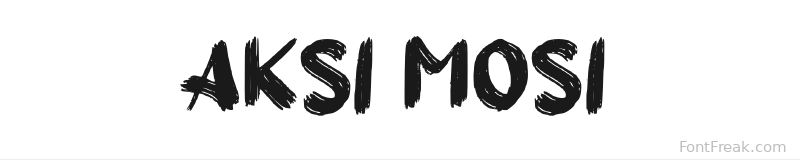
Aksi Mosi
About Aksi Mosi
Aksi Mosi is a striking display font designed by Wahyu Eka Prasetya, characterized by its bold, hand-drawn aesthetic that exudes a lively and artistic vibe. This font falls under the decorative category, making it perfect for projects that require a unique and expressive touch. The strokes feature a varied weight, with pronounced thickness that draws attention, while the slight irregularities in the letterforms enhance its handcrafted appeal. The spacing is well-balanced, allowing for legibility without sacrificing the playful essence of the design.
This font is particularly well-suited for a range of creative applications. It can elevate wedding invitations with its charming and informal style, making them feel personal and inviting. Additionally, Aksi Mosi is ideal for movie posters, where its bold presence can create a memorable visual impact. For restaurant menus, the font adds a touch of flair, perfect for eateries looking to convey a relaxed and friendly atmosphere. It's also great for social media graphics, where content creators can utilize its playful nature to engage their audience effectively.
Targeted towards graphic designers, small business owners, and content creators, Aksi Mosi caters to anyone looking to infuse their work with a sense of personality and creativity. Its freeware license allows for easy access, encouraging users to experiment and explore its potential in various contexts.
What sets the Aksi Mosi font apart is its distinctive hand-drawn quality, which brings a unique energy to any project. Its combination of boldness and playfulness makes it not just a font but a statement, perfect for those who wish to make a lasting impression. For anyone interested in enhancing their designs, Aksi Mosi font free download offers an exciting opportunity to explore this vibrant typeface.